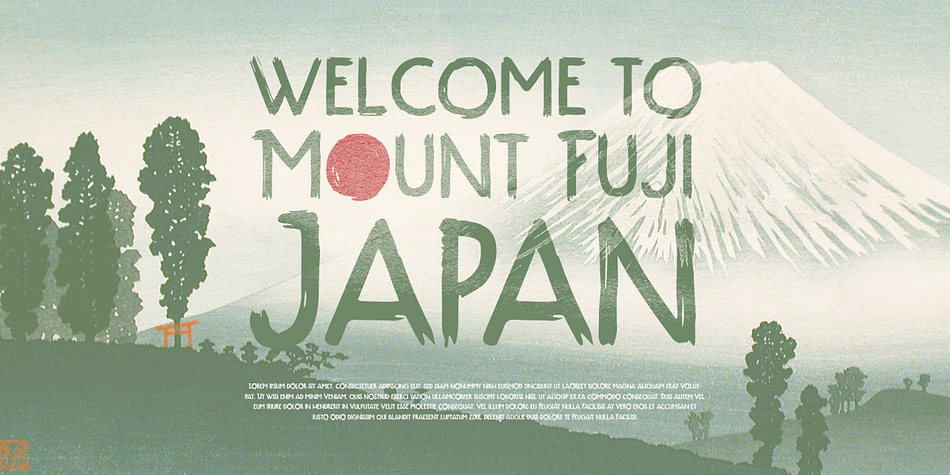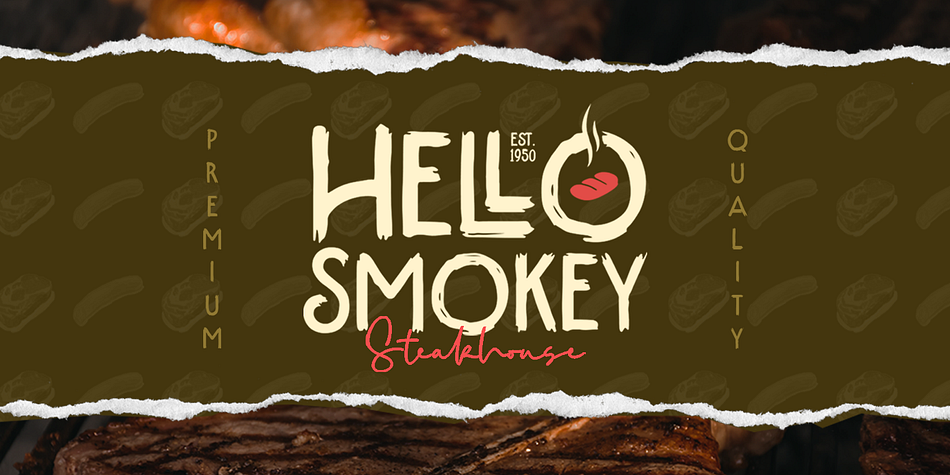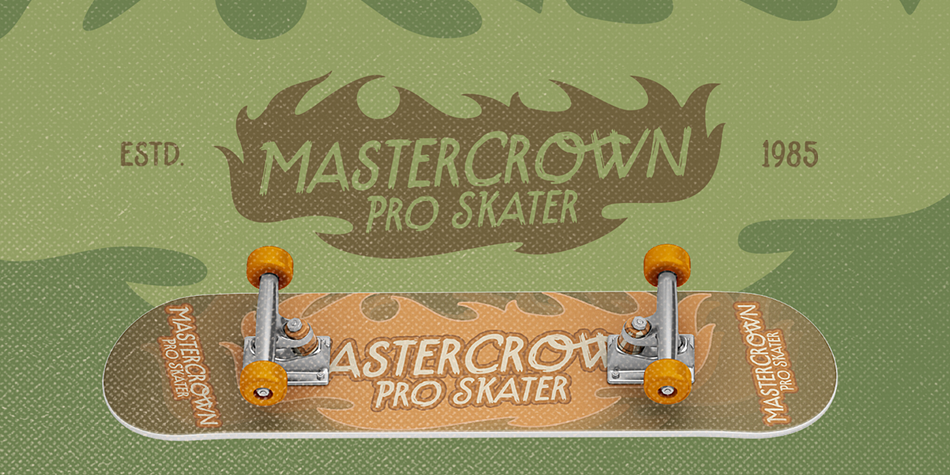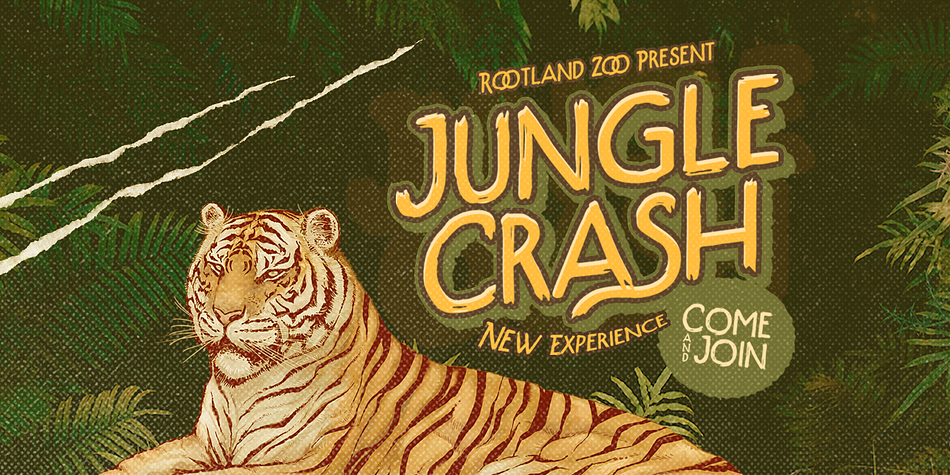
Designed by Hendry Juanda, The Pafoster is a brush display font published by Letterhend Studio.
The Pafoster is a display font with vintage and retro looks which is purposely made for headline, display or logotype. This type of font perfectly made to be applied especially in logo, and the other various formal forms such as invitations, labels, logos, magazines, books, greeting / wedding cards, packaging, fashion, make up, stationery, novels, labels or any type of advertising purpose.
Style | Brush Display |